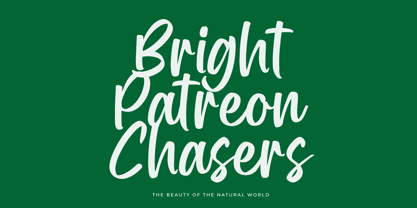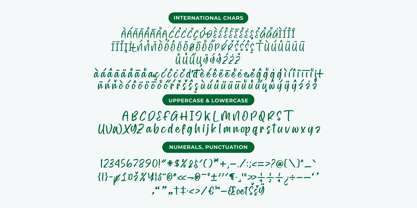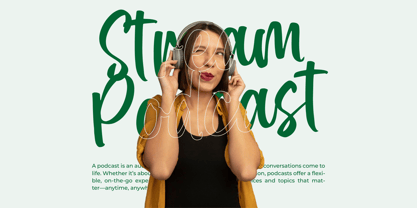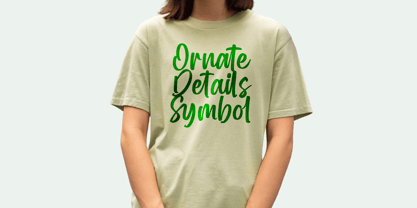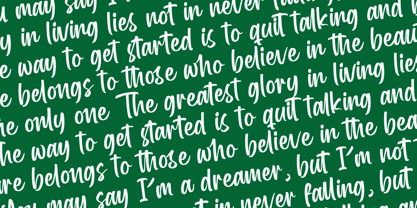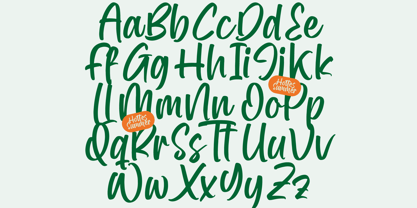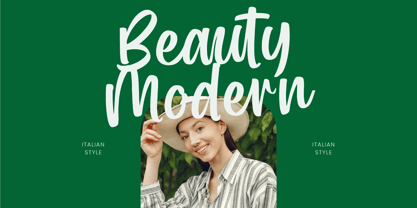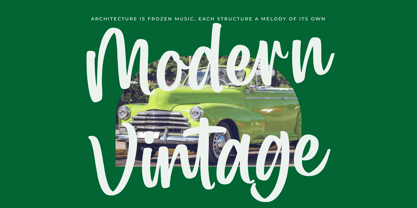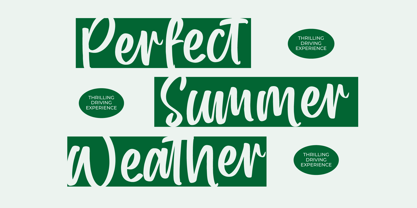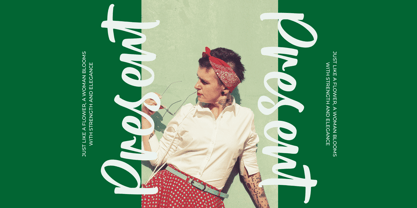
Hottes Summer
by Letterena Studios
Hottes Summer - Modern Script Font , from Letterena, is a Luxury Script font, suitable for any projects such as: logos, branding projects, homeware designs, product packaging, mugs, quotes, posters, shopping bags, t-shirts, book covers, name card, invitation cards, greeting cards, label, photography, watermark, special events, and all your other luxury and beautiful projects that need a Luxury Script taste.